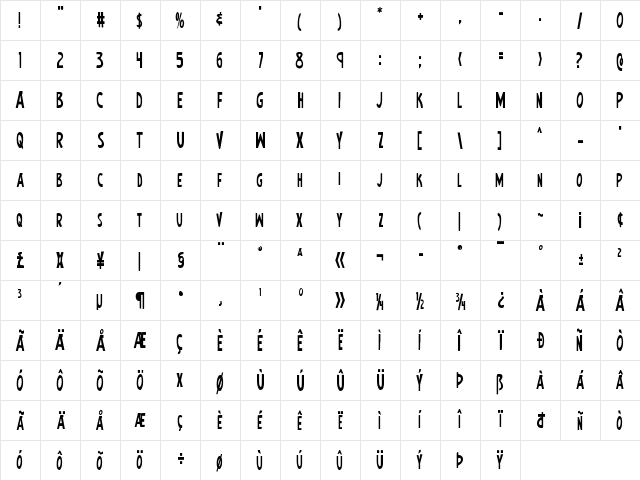
Earth's Mightiest Condensed Font Preview
Earth's Mightiest Condensed Condensed
Design Context for Earth's Mightiest Condensed Typeface
Earth's Mightiest Condensed offers clean, dependable letterforms without strong stylistic allegiance, making it a practical choice for designers who need flexibility. The condensed width makes it efficient for tight spaces without sacrificing legibility.